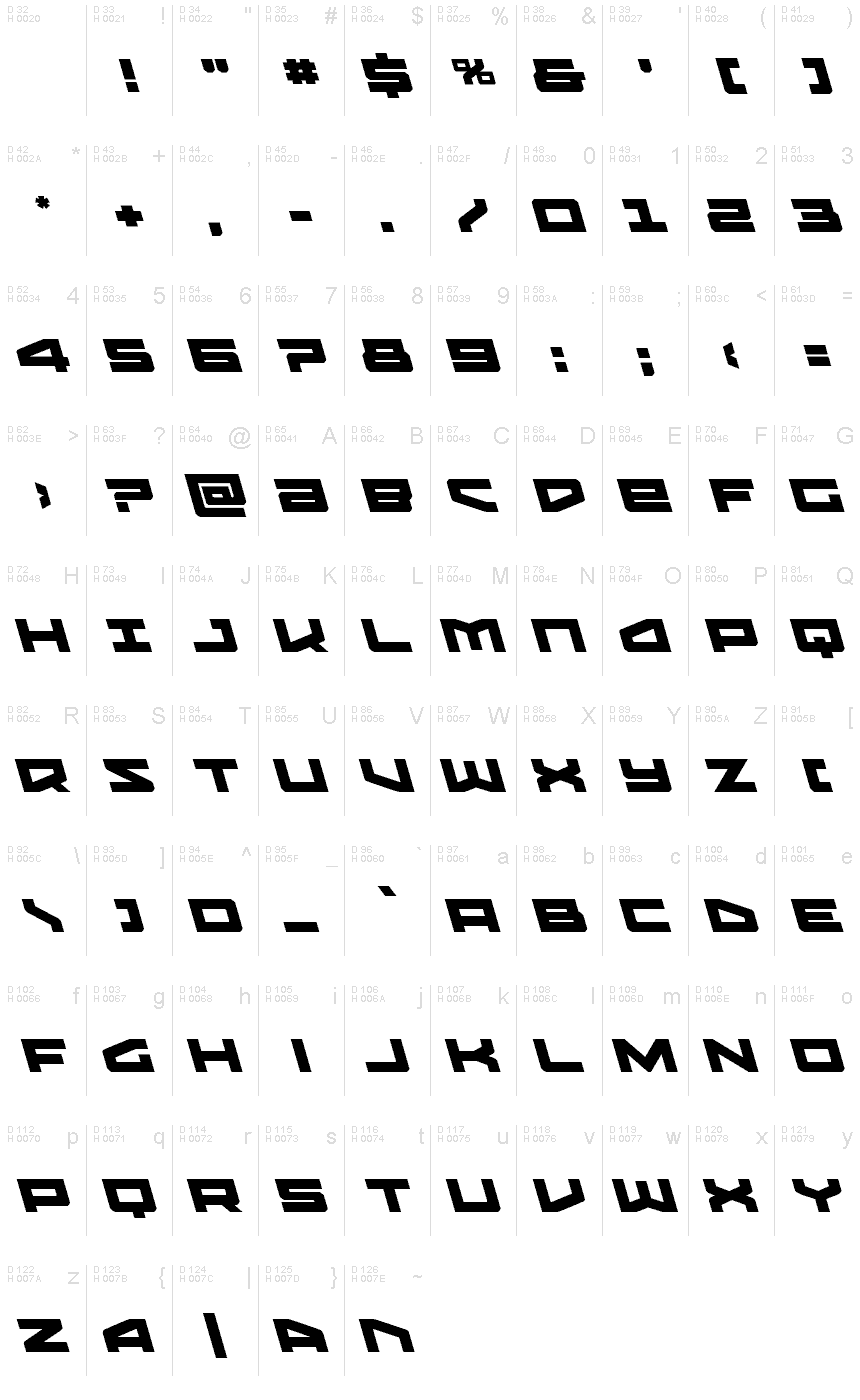
Vortex Dancer Leftalic font is a futuristic expanded display font designed by Iconian Fonts. Featuring geometric shapes made of mostly sharp angles, the font comes with a bold style that creates a powerful impact wherever used. This free modern font offers an eye-catching visual experience where letters appear as if constructed from metallic or robotic pieces.